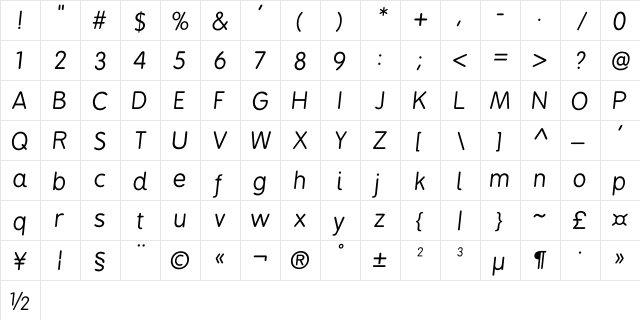
BPreplay Italic
| Foundry | Magenta/George Triantafyllakos |
| Designer | Magenta/George Triantafyllakos |
Design Context for BPreplay Typeface
BPreplay is a composed and adaptable typeface that performs quietly and consistently across a wide range of design contexts. The dynamic lean of this cut emphasises speed and emphasis in any layout.
Pro Tip: Use BPreplay for emphasis, pull quotes, and subheadings where its slanted energy can add rhythm to the layout.